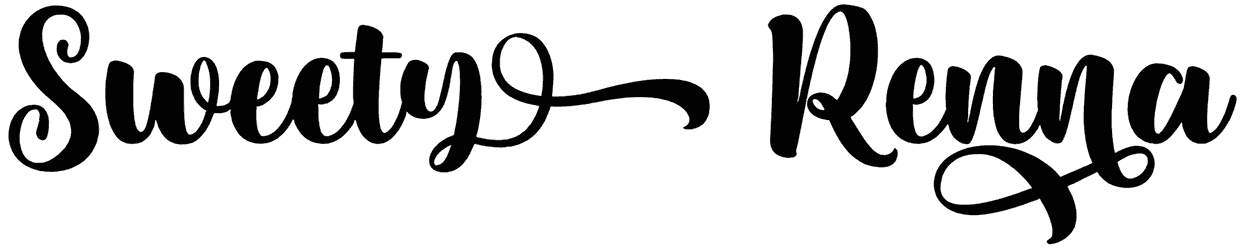
Sweety Renna Font
Sweety Renna is an eye-catching font that is appropriate for happy situations. This script font has a playful style and immediately grabs your attention. Besides, you may use the Sweety Renna font in several cases, such as postcards, logos, and brochures. This Valentine font’s letters have curly tails with smooth edges, creating a lovely feeling. So give it a try now to impress your audience.